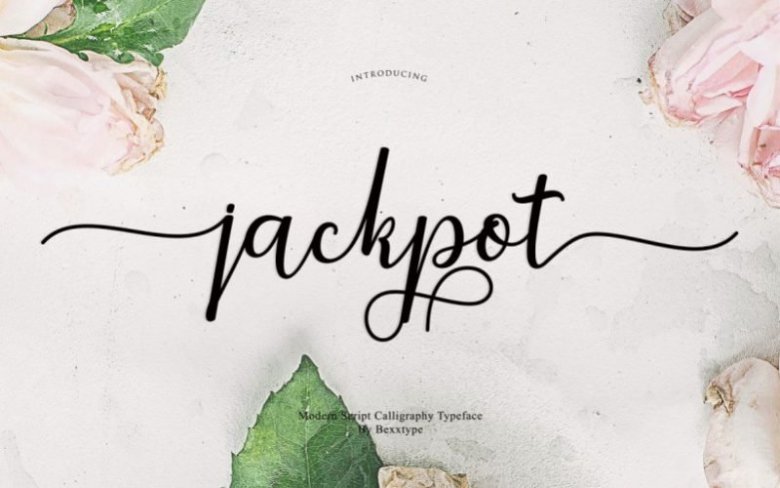
Jackpot Calligraph Font
Jackpot Script a new fresh & modern script with a handmade calligraphy style, decorative characters and a dancing baseline! So beautiful on invitation like greeting cards, branding materials, business cards, quotes, posters, and more!!